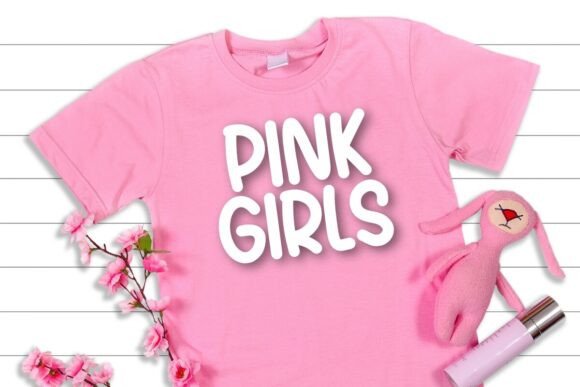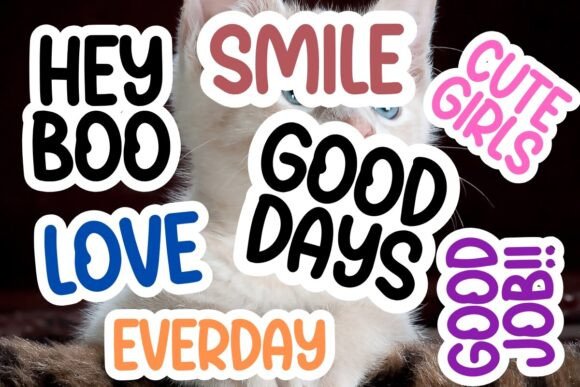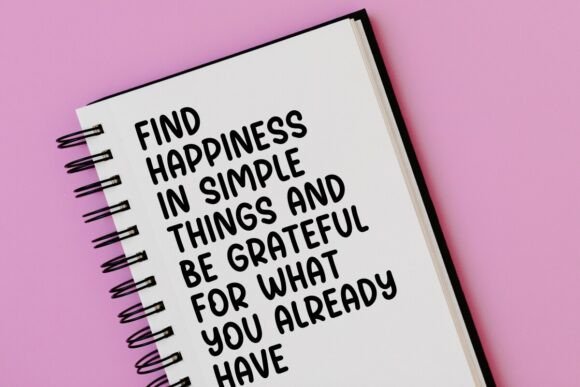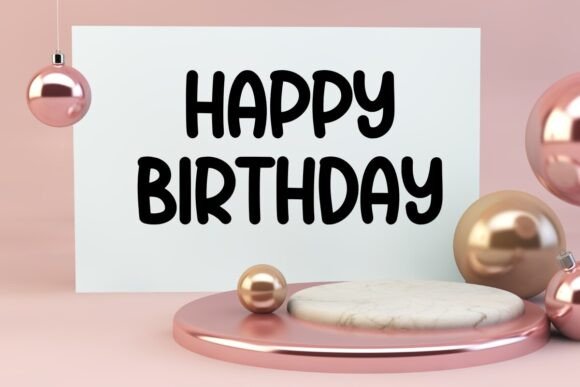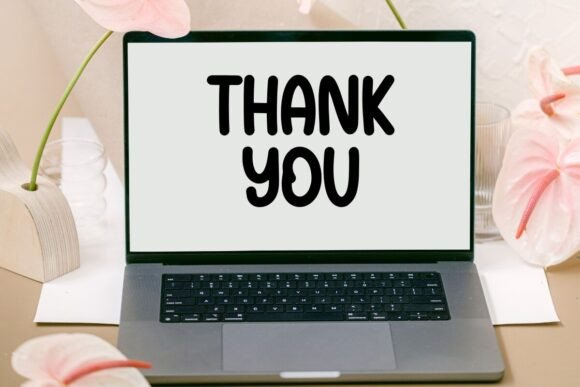
Unleash the Magic of Winter with Baby Reindeer Font
Have you ever sat down with a cup of hot cocoa, surrounded by twinkling lights, and felt inspired to create something truly special? That’s exactly what happened to me when I stumbled upon the adorable Baby Reindeer Font. Its whimsical and playful style instantly captured my heart, and I knew I had to share it with fellow designers and creatives.
Baby Reindeer Font is a charming handwritten sans serif font, designed to add a friendly touch to any project. Whether you’re planning a festive holiday party, a fun-filled summer event, or a cozy winter wonderland, this font is sure to bring a smile to your audience’s faces. Its versatility and charm make it a valuable addition to any designer’s font library, and I’m excited to share its magic with you.
Baby Reindeer Font Key Features
- Size: 1000 glyphs, including Latin, Cyrillic, and Greek alphabets
- Resolution: Supports high-resolution printing and digital displays
- Unique Characteristics: Whimsical and playful design, perfect for children’s books, holiday graphics, and festive branding
- Language Support: Multilingual support for languages that use Latin, Cyrillic, and Greek alphabets
- Font Style: Casual, handwritten font with a mix of uppercase and lowercase letters
Review of Baby Reindeer Font
Overall, I think the Baby Reindeer Font is a delightful and unique addition to any design project. ✨ The font’s playful and whimsical nature makes it perfect for festive or holiday-themed designs, but it could also work well in a variety of other contexts.
- ✨ The font’s friendly and approachable feel makes it great for designs targeting a younger audience.
- ✨ The unique letterforms and shapes add a touch of personality to any design.
- ✨ The font’s versatility allows it to be used in a range of design contexts, from logos to packaging to digital interfaces.
- ⚠️ The font may not be suitable for designs that require a more professional or formal tone.
- ⚠️ The font’s playful nature may not lend itself well to designs that require a high level of sophistication or complexity.
- ⚠️ The font may not be suitable for designs that require a lot of text, as the letterforms can be quite ornate and may be difficult to read at small sizes.
Overall, I think the Baby Reindeer Font is a fun and creative addition to any design project. While it may not be suitable for every design context, it’s a great choice for projects that require a playful and approachable feel.
Getting the Most Out of Baby Reindeer Font
To get the most out of Baby Reindeer Font, use it in creative and playful designs, such as holiday cards, gift tags, and nursery decor. Experiment with different font sizes, colors, and combinations to create a unique look.
Common use cases for Baby Reindeer Font include:
– Holiday greeting cards
– Gift tags and wrapping paper
– Nursery decor and baby shower invitations
– Children’s book illustrations and typography
Alternatives to Baby Reindeer Font
Great Vibes is a beautiful, handwritten script font perfect for adding a touch of elegance and sophistication to your designs. It’s ideal for use in wedding invitations, quotes, and other creative projects where a unique, flowing script is desired.
Great Vibes Font is more elegant and refined compared to Baby Reindeer Font, which is more playful and whimsical. Great Vibes Font has a more sophisticated feel and is suitable for formal designs, while Baby Reindeer Font is better suited for casual, festive designs.
Alex Brush is a beautiful, hand-painted font that’s perfect for adding a touch of whimsy and personality to your designs. It’s ideal for use in creative projects such as posters, flyers, and social media graphics.
Alex Brush Font is more rustic and handmade compared to Baby Reindeer Font, which has a more modern and playful feel. Alex Brush Font is better suited for designs that require a more organic and textured look, while Baby Reindeer Font is better suited for designs that require a more modern and trendy feel.